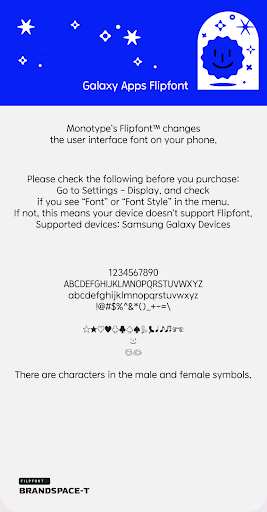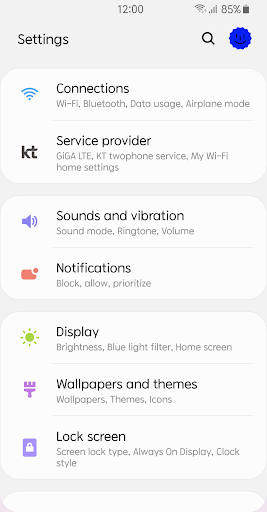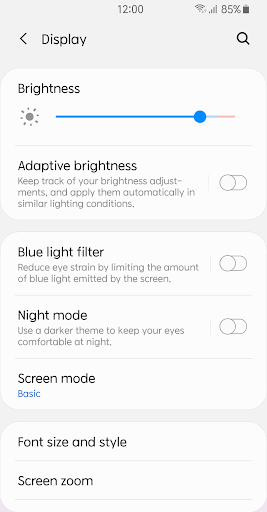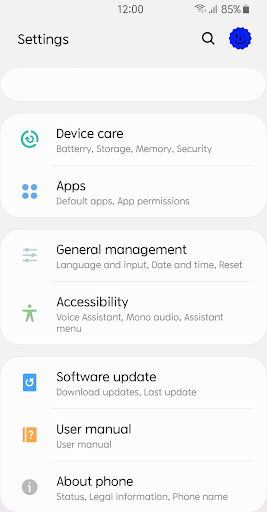
BST SpaceSans
This typeface thinks of beauty in a leisurely space with the theme of space. It's a design that has a refreshing feeling because it melts softness in a hard shape. The characteristics of straight lines and curved lines are cute. The proper thickness and text lines are organized, so you can use it for a long time without getting tired of the aesthetics of the formative rolling. "Soon, my, my own brand" Space Gothic.
There are symbols ♀ boys and ♀ girls!